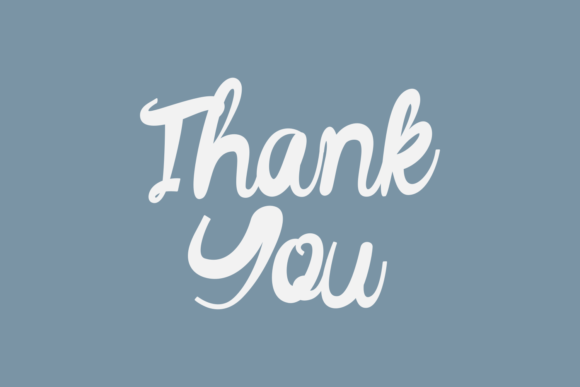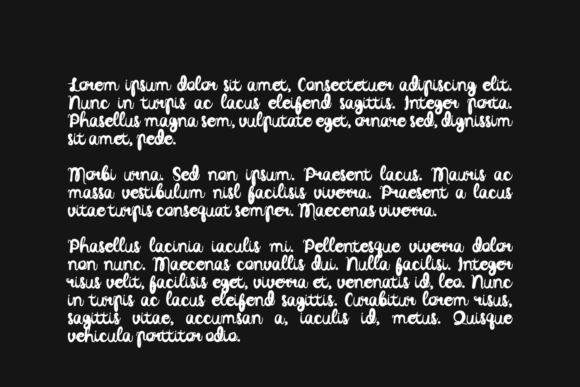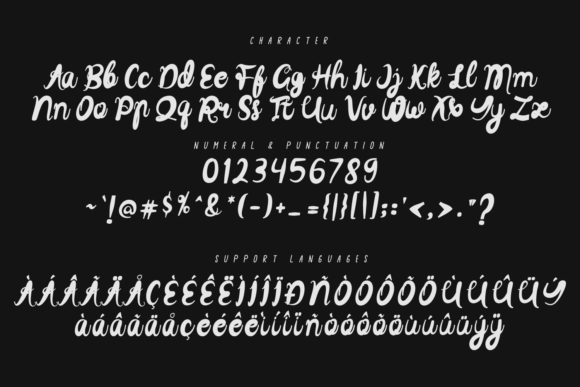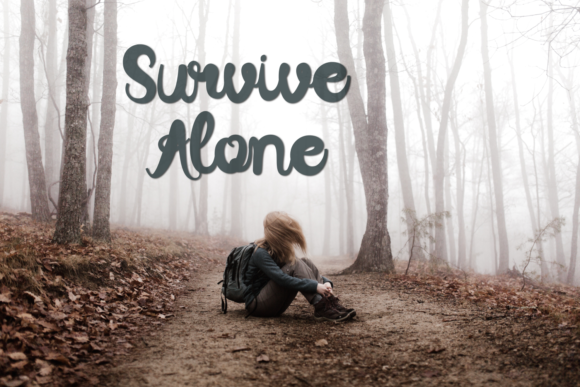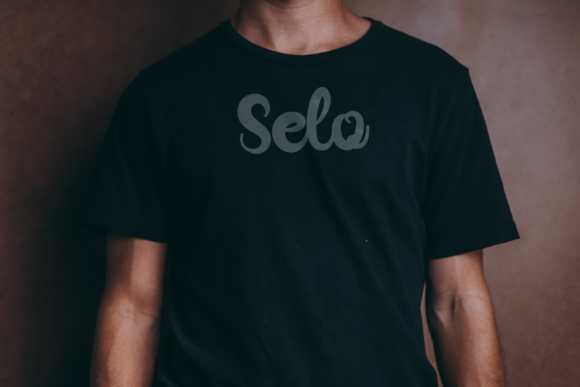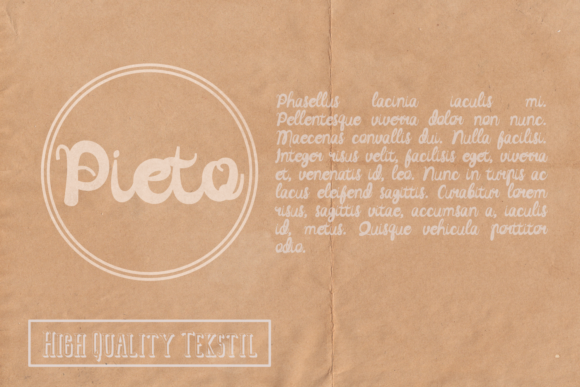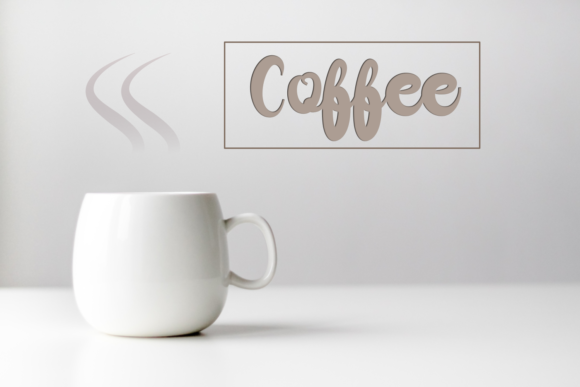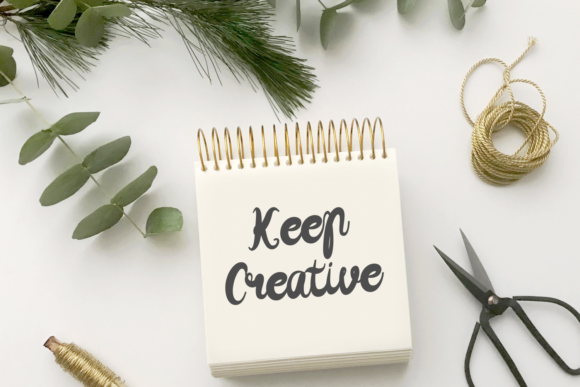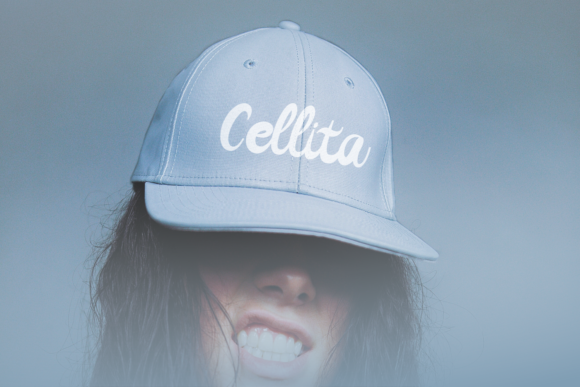
Cellita Font
About Cellita Font
Cellita is a bold handwritten font, carefully handcrafted to become a true favorite. This font will look outstanding in any context, whether it’s being used on busy backgrounds or as a standalone headline!